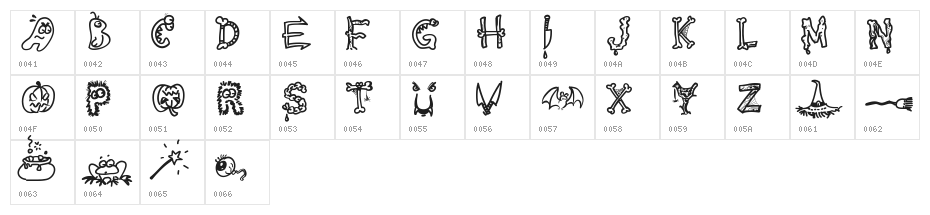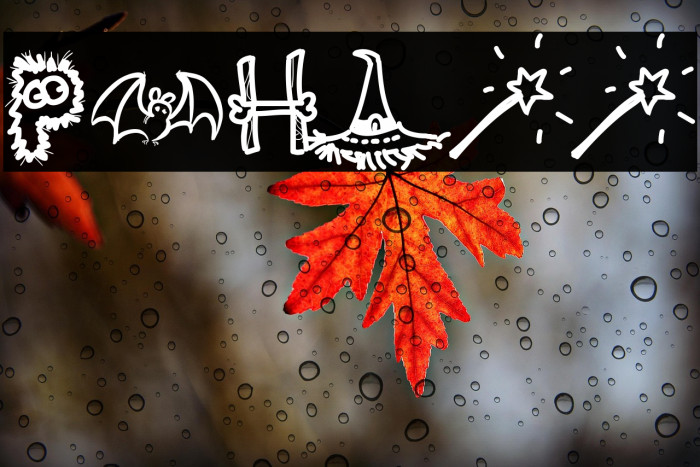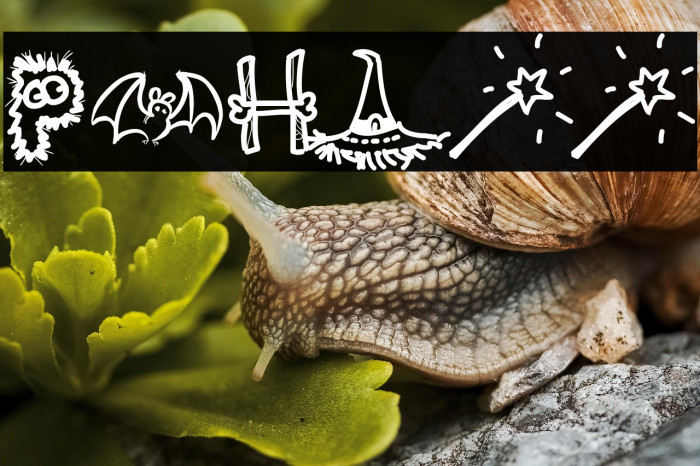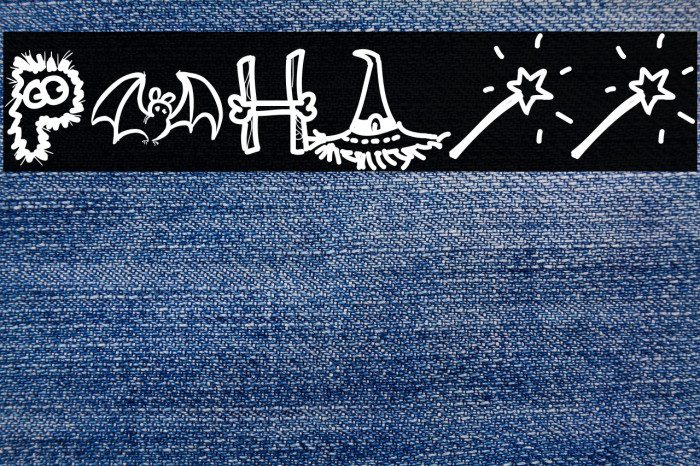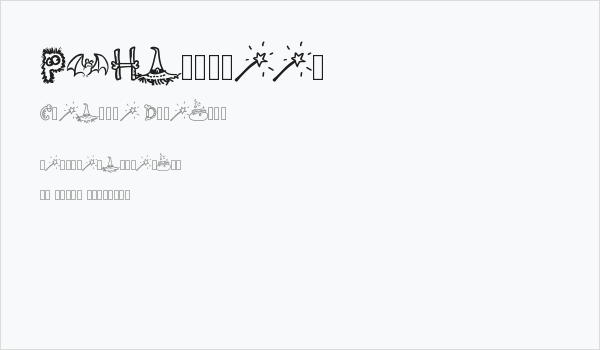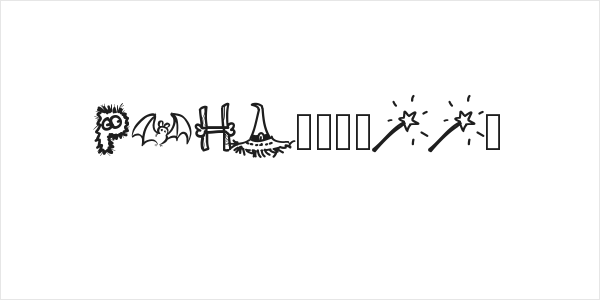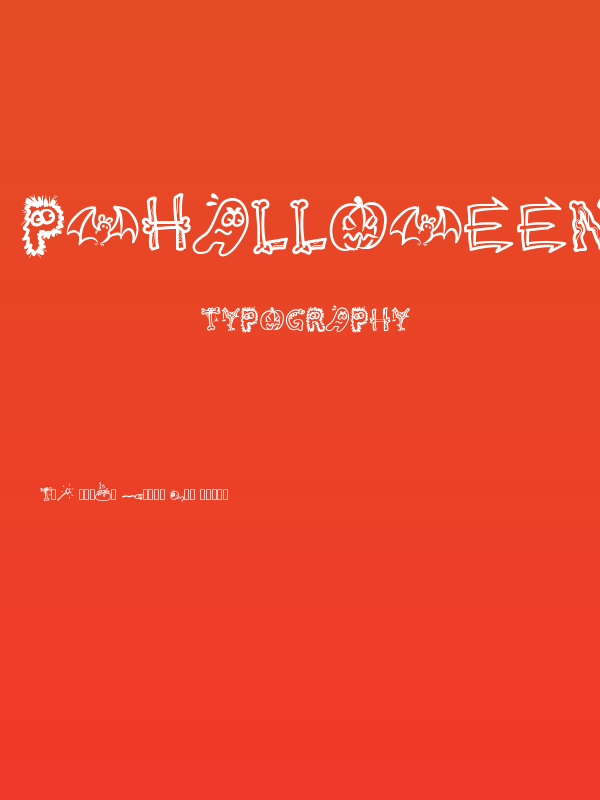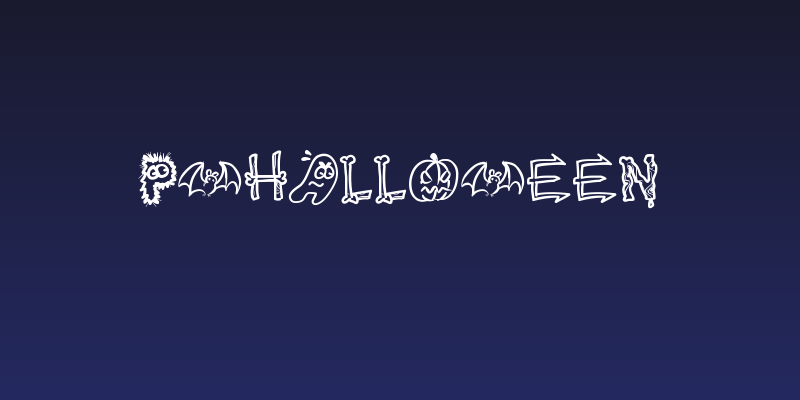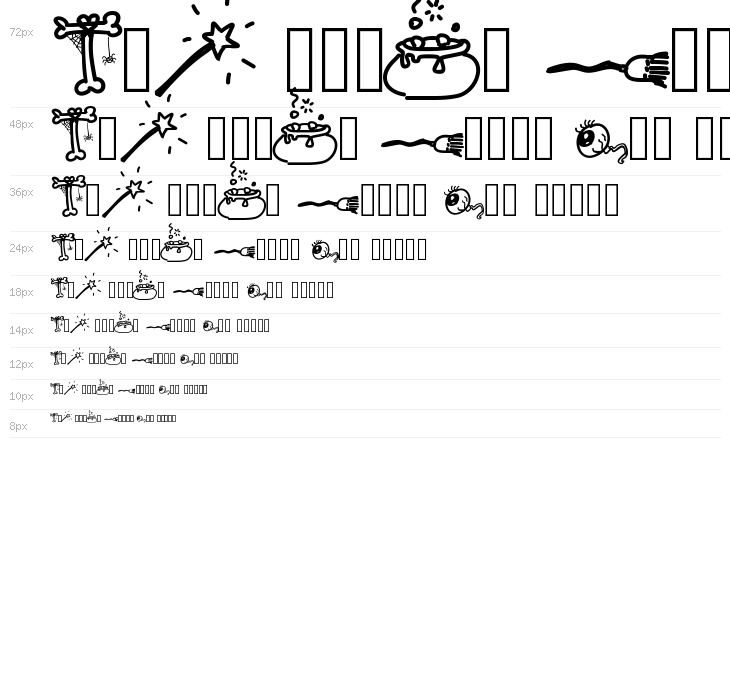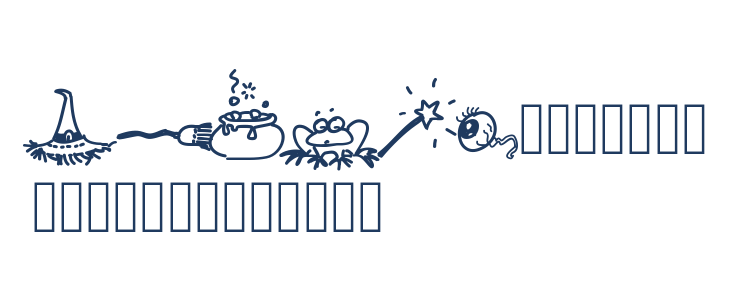
PWHalloween Font
PWHalloween Description
This playful and spooky font is perfect for Halloween-themed projects. Each letter is uniquely designed with elements like ghosts, bats, and pumpkins, creating a whimsical yet eerie atmosphere. The uppercase letters feature dripping effects and quirky embellishments, while the lowercase letters maintain a consistent theme with creative twists. Numbers and special characters are equally imaginative, incorporating Halloween motifs. The font's decorative style is eye-catching and ideal for capturing the spirit of Halloween.
| Proposed Projects | Ideal for Halloween party invitations, themed posters, children's books, and festive banners. |